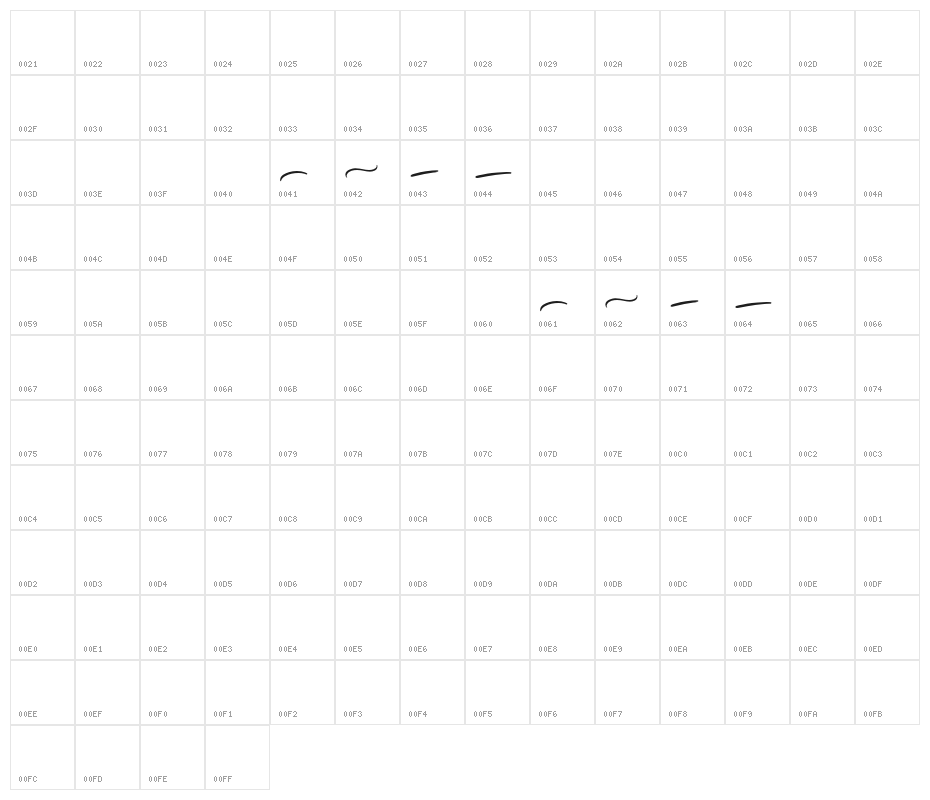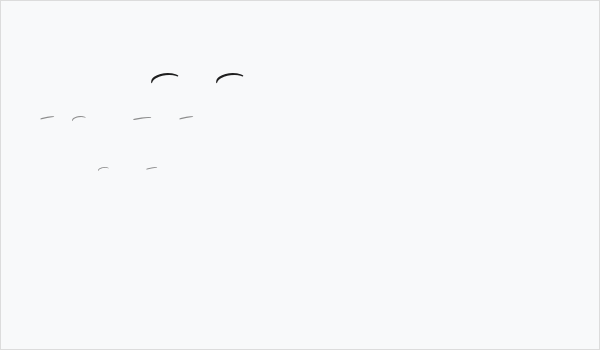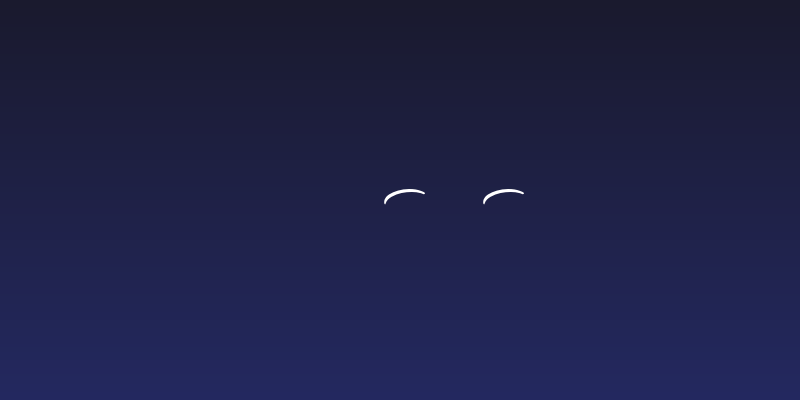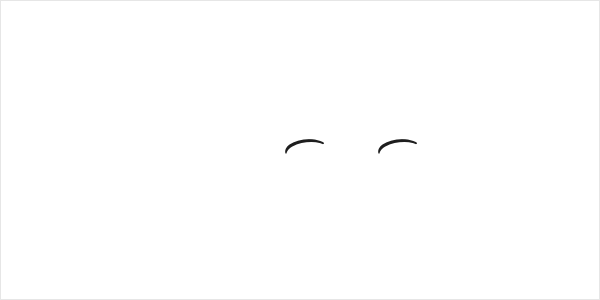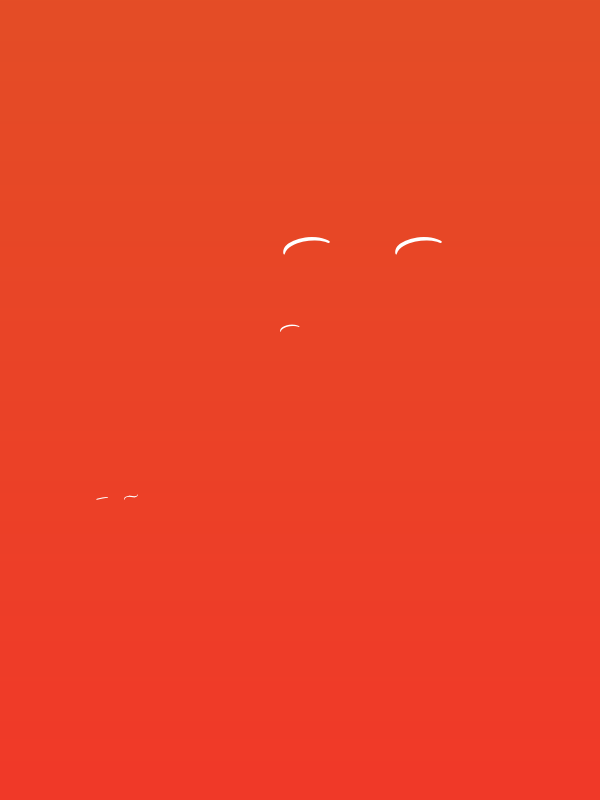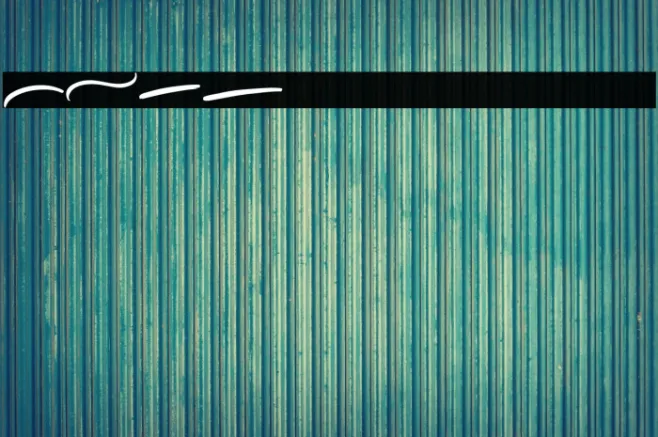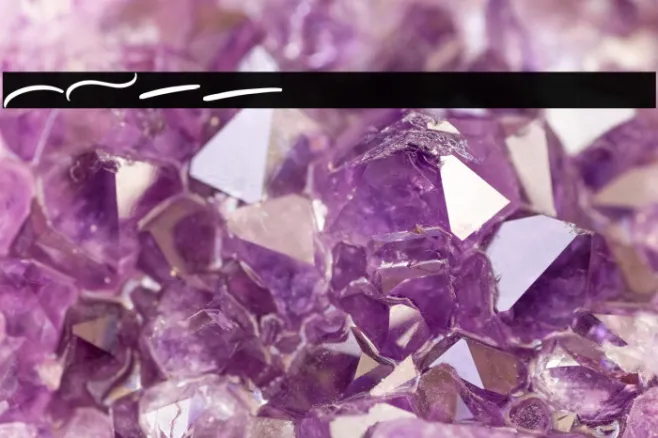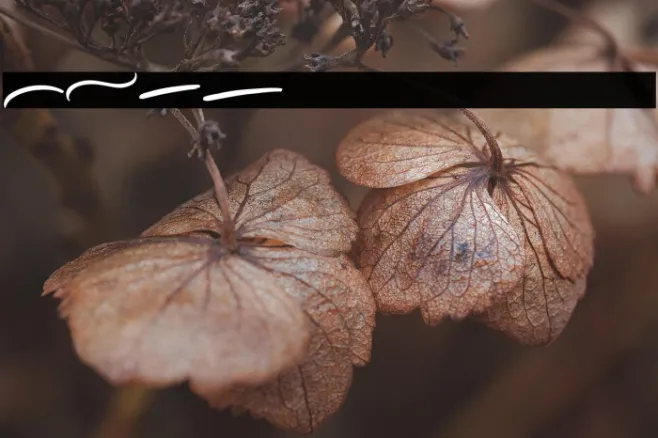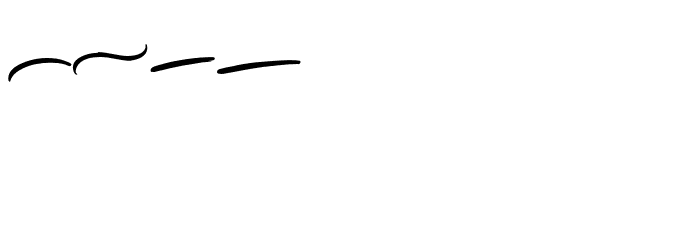
QuentsaSwash Font
QuentsaSwash Description
This font features elegant, flowing swashes that add a touch of sophistication and flair. The strokes are smooth and graceful, with a slight curvature that gives each character a sense of movement and fluidity. The design is reminiscent of calligraphy, with a modern twist that makes it suitable for contemporary projects. The characters are well-spaced, ensuring readability while maintaining an artistic appeal. This font is perfect for projects that require a touch of elegance and style, such as invitations, branding, and decorative elements.
| Proposed Projects | Ideal for wedding invitations, luxury branding, decorative headings, and artistic designs. |